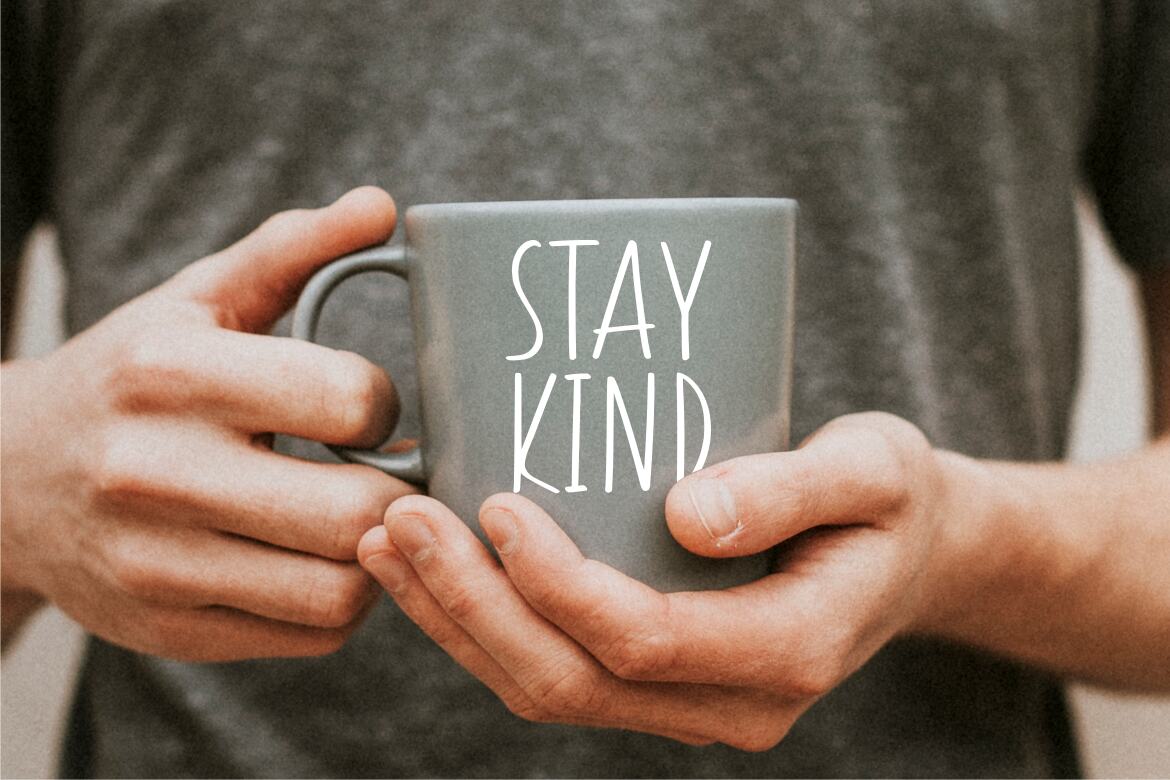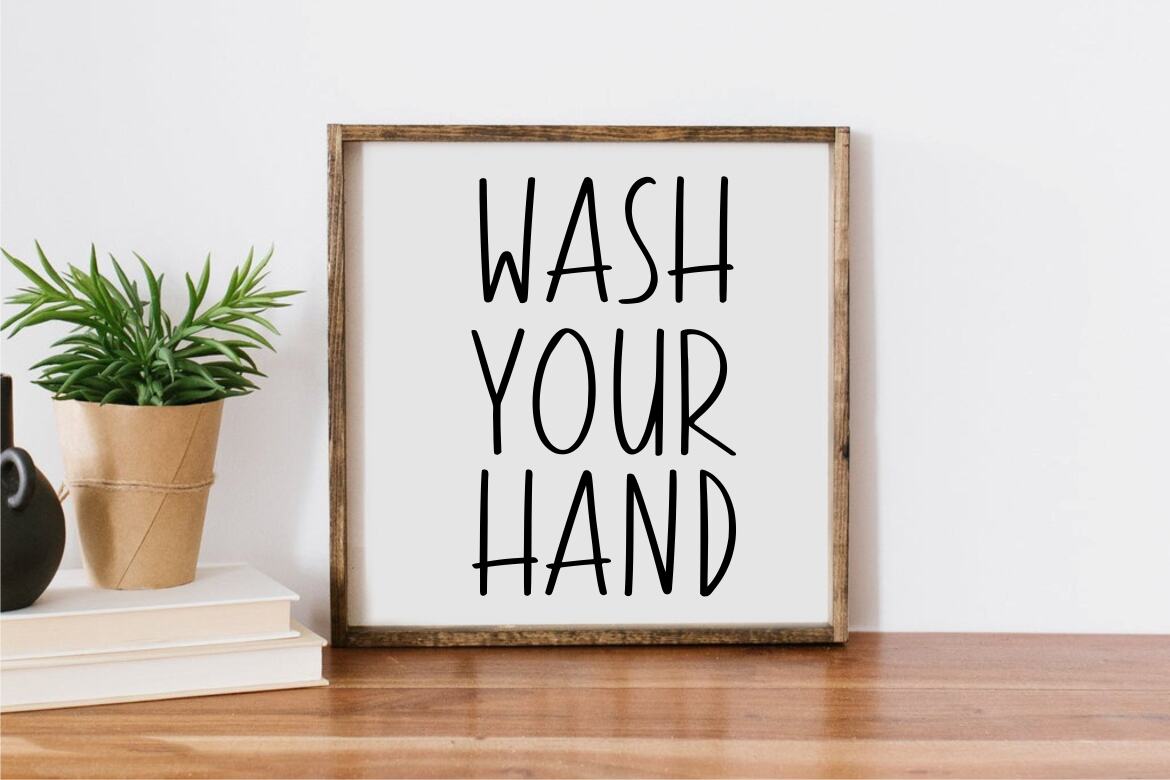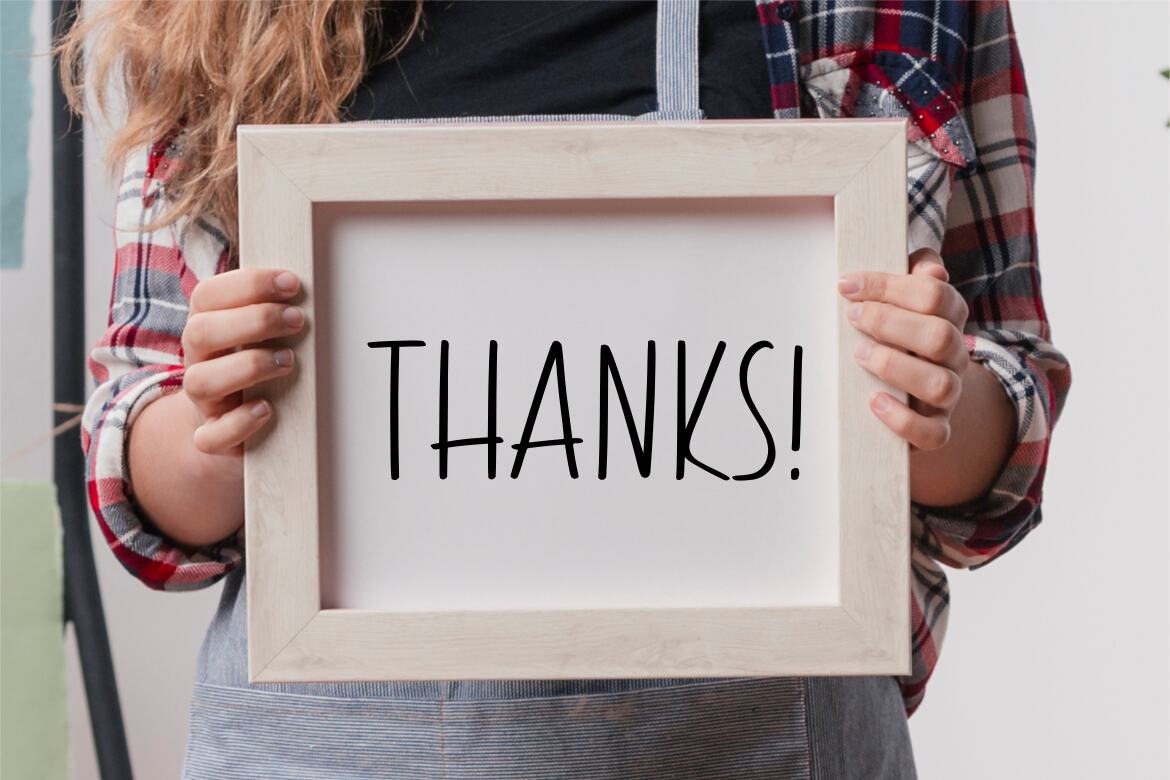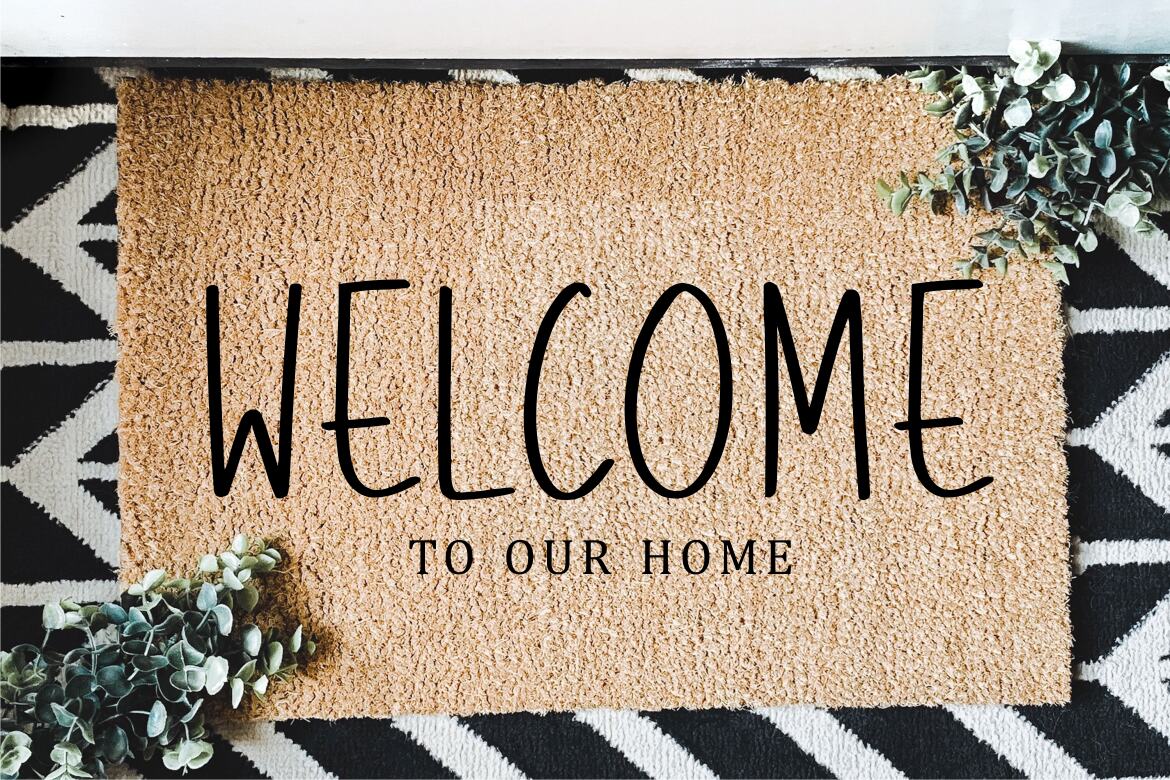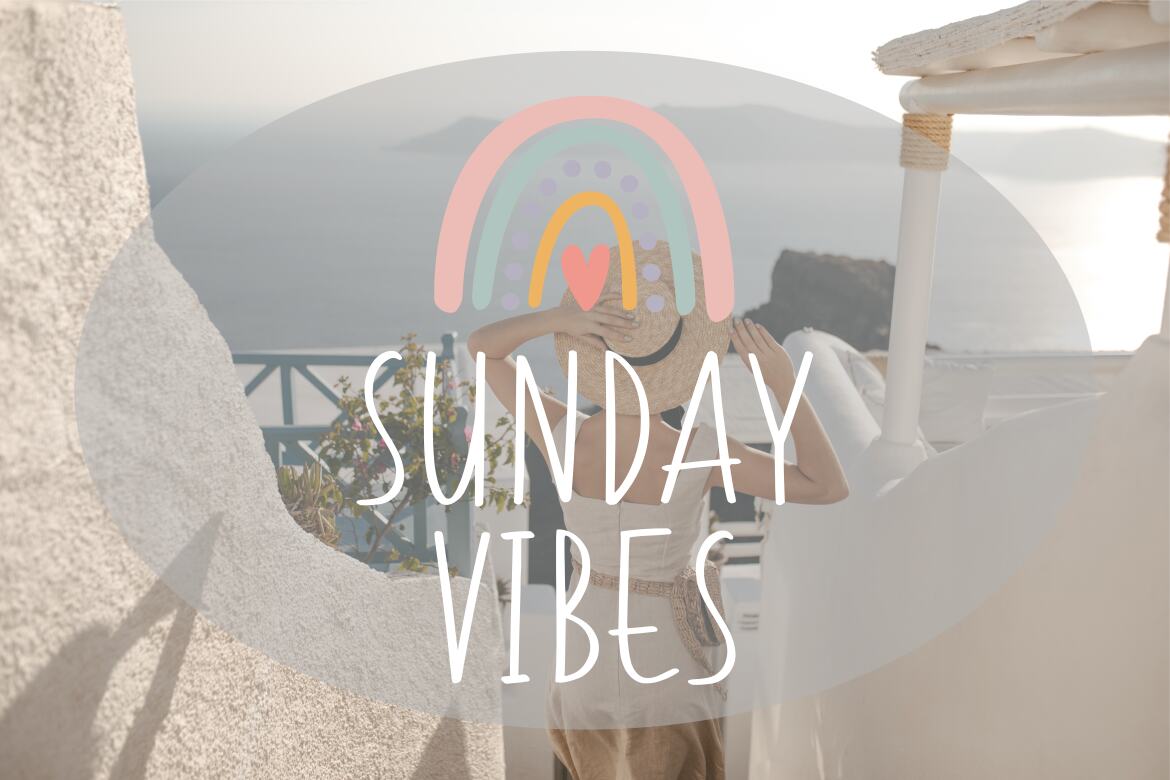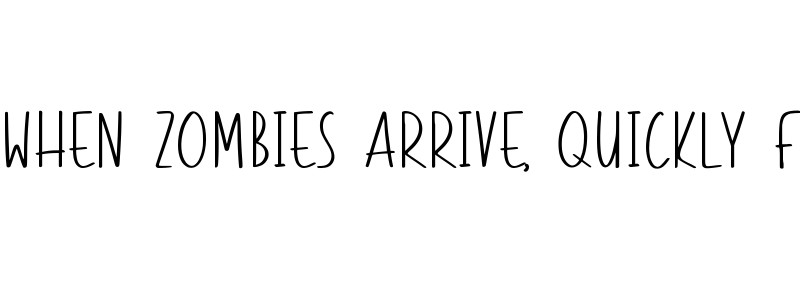
Farmgarden FREE Font
Farmgarden
Introducing by Qwrtype
Proudly Present, Farmgarden
Farmgarden is a Tall & Skinny Handwritten Font
Farmgarden is perfect for product packaging, branding project, megazine, social media, wedding, or just used to express words above the background.